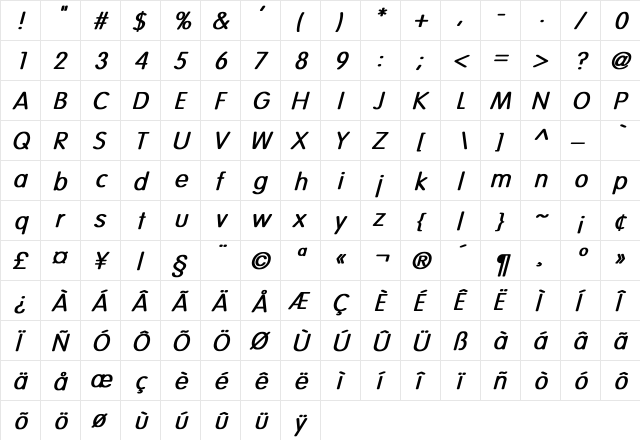
Vogue-Normal Bold Italic Regular
Design Context for Vogue-Normal Bold Italic Typeface
Vogue-Normal Bold Italic is a composed and adaptable typeface that performs quietly and consistently across a wide range of design contexts. The slanted form adds forward momentum and visual energy. Its bold stroke weight gives it real presence on the page.
Pro Tip: Try Vogue-Normal Bold Italic for annotation and caption copy alongside an upright companion — the contrast in angle creates a dynamic but ordered typographic system.